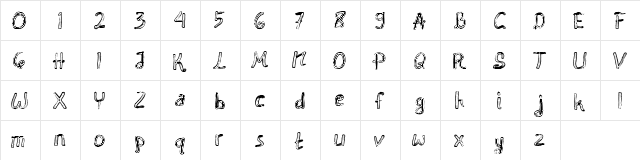
Shadows Regular Font Preview
Shadows Regular
Design Context for Shadows Typeface
Shadows brings ornamental detail and strong personality to headlines and identities, where visual impact matters more than quiet functionality.
Font Pairing: Pair with a clean neutral sans-serif for body copy to let Shadows's character lead without overwhelming the composition.
Pro Tip: Treat Shadows as the centrepiece of your typographic hierarchy. One strong heading set in a decorative face can carry an entire layout.